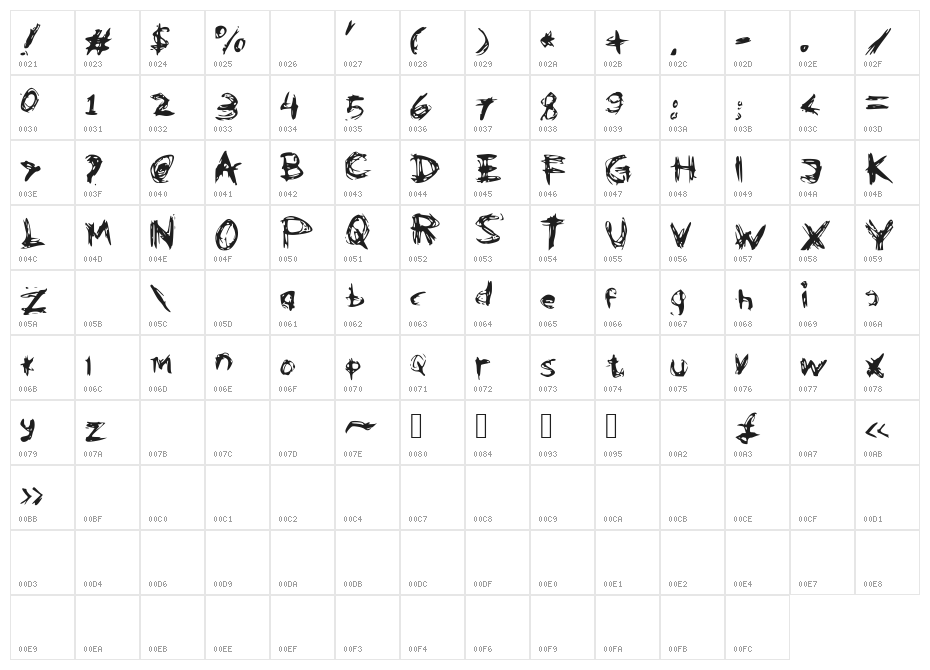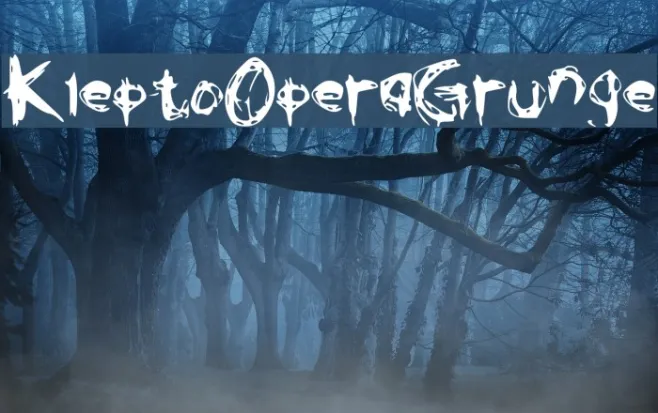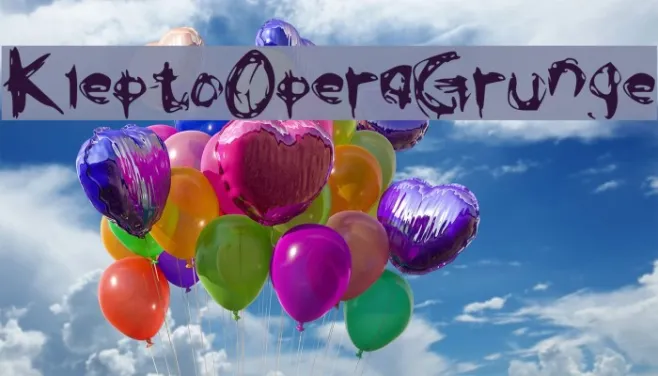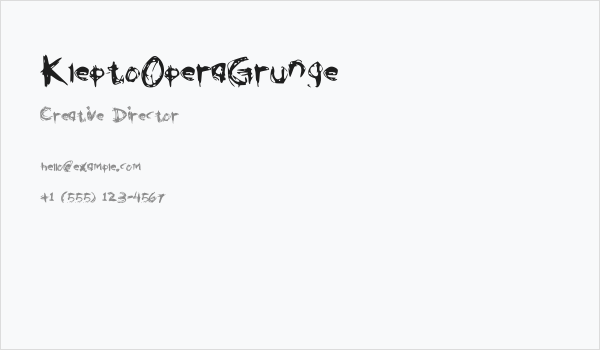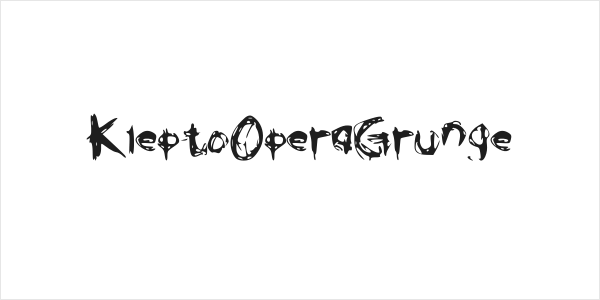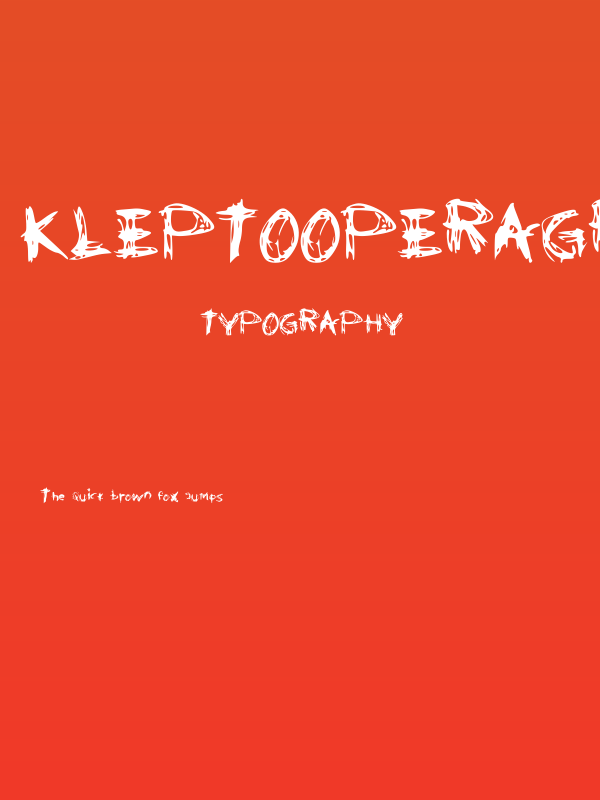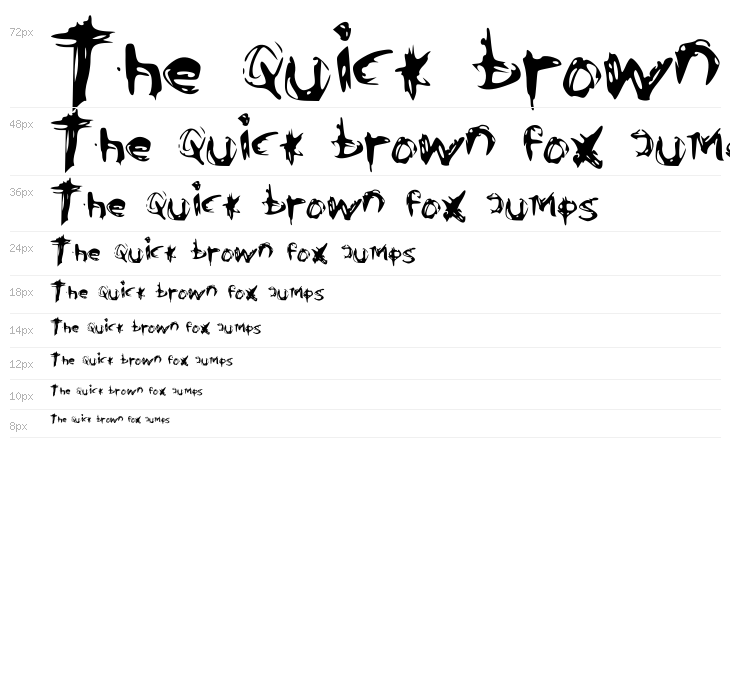
KleptoOperaGrunge Font
KleptoOperaGrunge Description
This font exudes a chaotic and grungy aesthetic, characterized by its jagged edges and irregular forms. The letters appear as if they have been scratched or torn, giving them a raw and edgy feel. Each character is unique, with varying thickness and unexpected curves, contributing to its overall distressed look. The font captures a sense of rebellion and nonconformity, making it ideal for projects that require a bold and unconventional style. Its high contrast and dramatic appearance make it stand out, ensuring that any text set in this font will capture attention.
| Overall Style | Grunge, Edgy |
| Proposed Projects | Album covers, streetwear branding, event posters, or any project needing a bold, edgy look. |